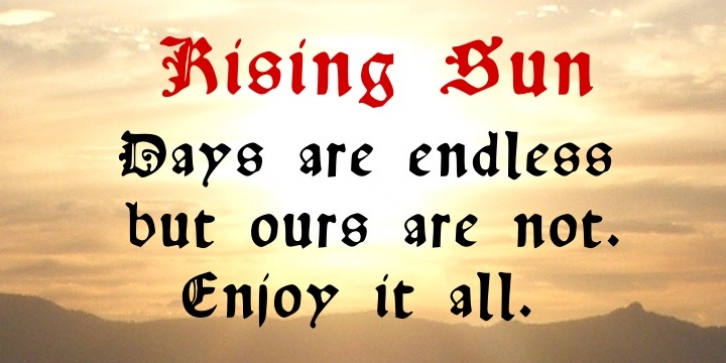
Rising Sun was designed by Shane Brandes and published by Proportional Lime. Rising Sun contains 1 style.
This typeface was inspired by Gering and Remboldt's work during the late 1490s.
Their printing concern, the Soleil d'or in Paris, was one of the printing business to engage in the use of blackletter printing, when the rest of the Parisian printers where using humanist influenced roman typefaces. This peculiar backwards trend was really one of the original examples of 'retro', taking advantage of the desires of the more conservative northern Europe that had not yet embraced the newer roman types.